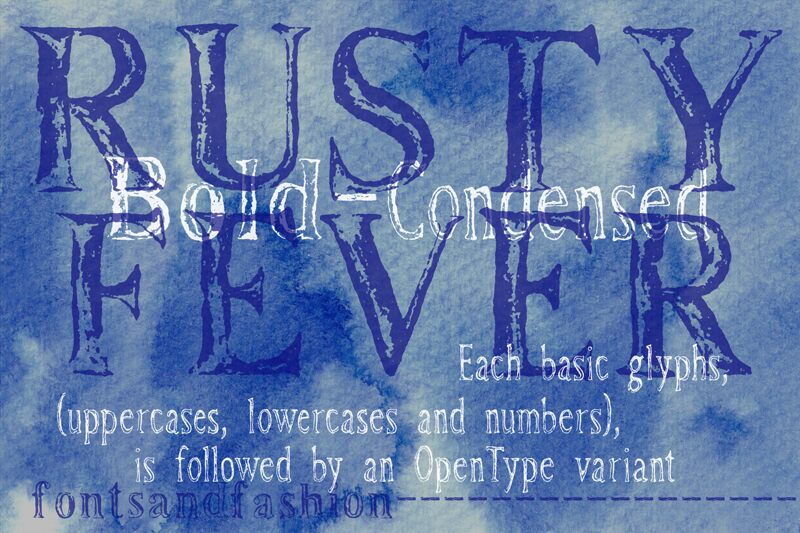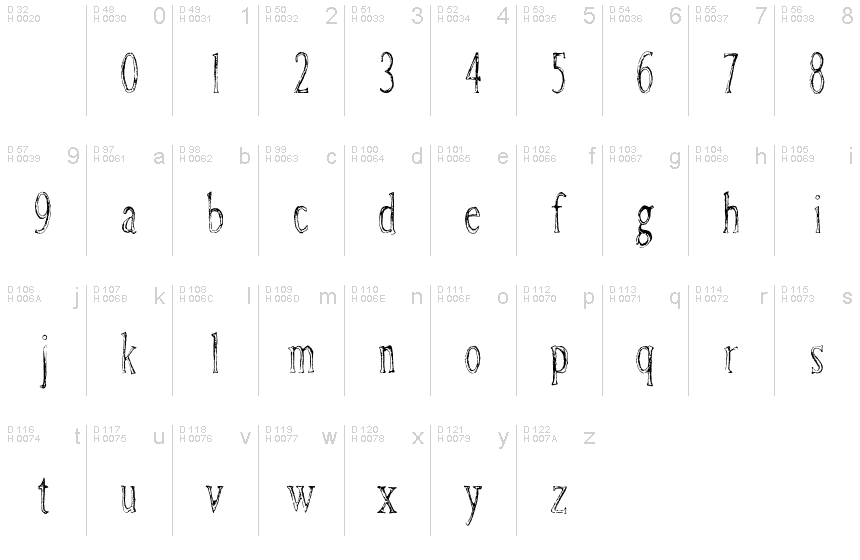
Rusty Fever_Condensed Regular
RUSTY FEVER_Condensed is a Slab Serif font designed by fontsandfashion that evoke the suggestive atmosphere of the depth of oceans and the water erosion aspect.
The corroded, rusted and thiny effect confer to these fonts an oxidized appeal, emphasizing their own irregular shape.
Each single font is created by 288 glyphs, including OpenType variants that may only be accessible via OpenType-aware applications.
Each basic glyph, (uppercases, lowercases and numbers), is followed by an OpenType variant.